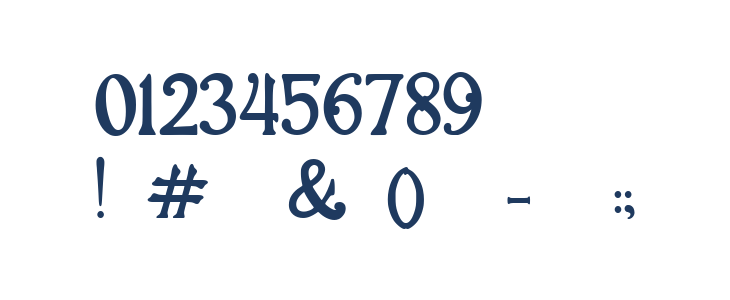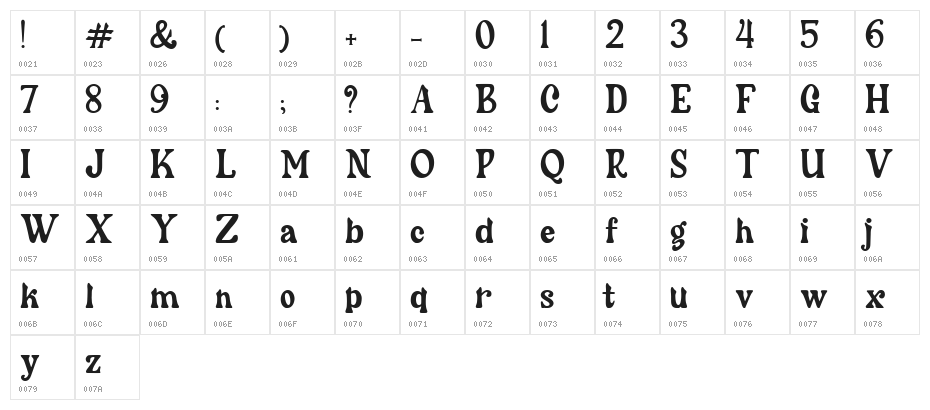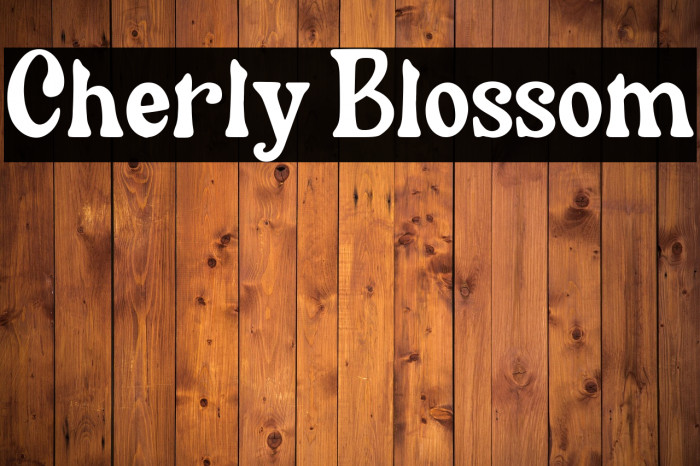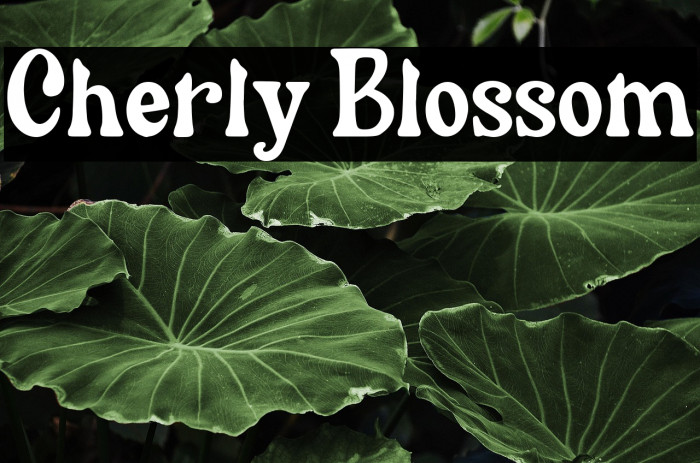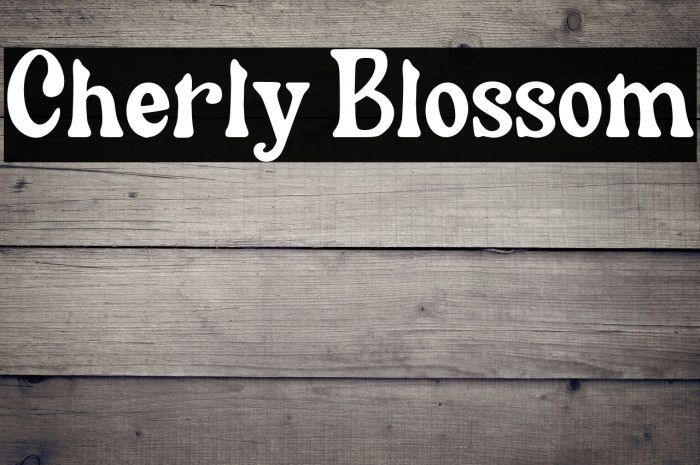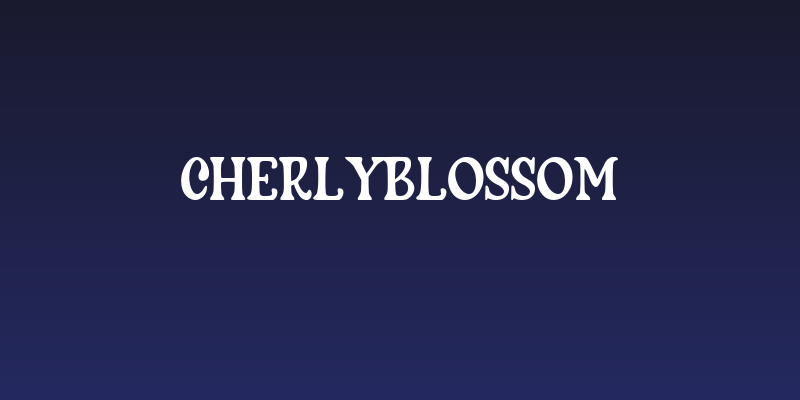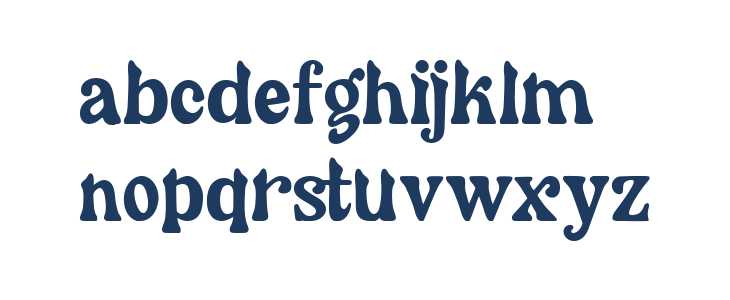
Cherly Blossom Font
Cherly Blossom Description
This font features a playful and whimsical design with a decorative flair. The characters exhibit a unique blend of boldness and curves, giving them a lively and dynamic appearance. The uppercase letters are robust and slightly condensed, while the lowercase letters maintain a consistent flow with rounded edges. The numerals are bold and easily distinguishable, adding to the font's versatility. Special characters are creatively styled, enhancing the font's overall charm. This font is ideal for projects that require a touch of personality and creativity.
| Overall Style | Playful, Whimsical, Decorative |
| Proposed Projects | Ideal for children's books, playful branding, greeting cards, and creative posters. |